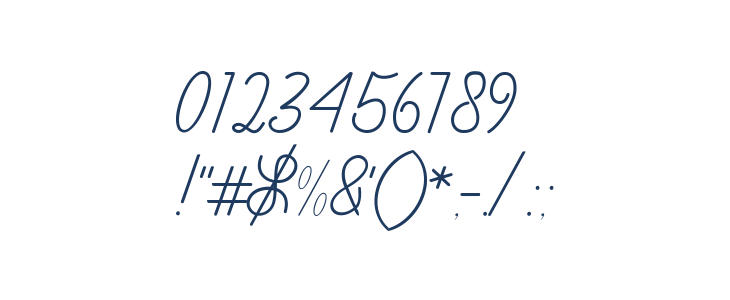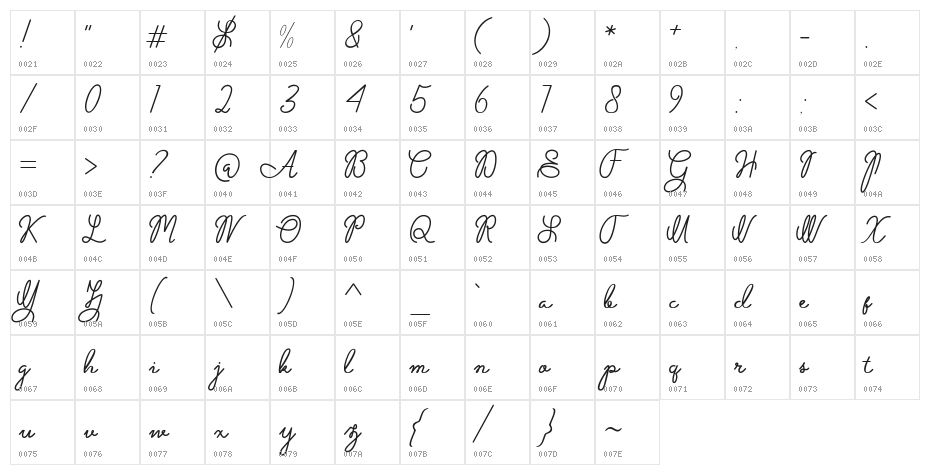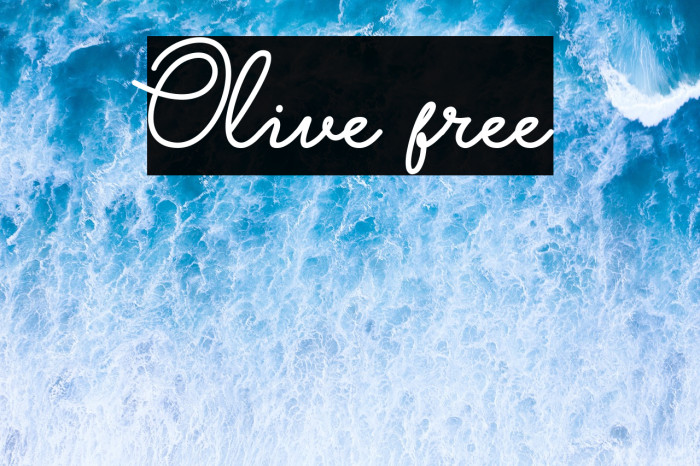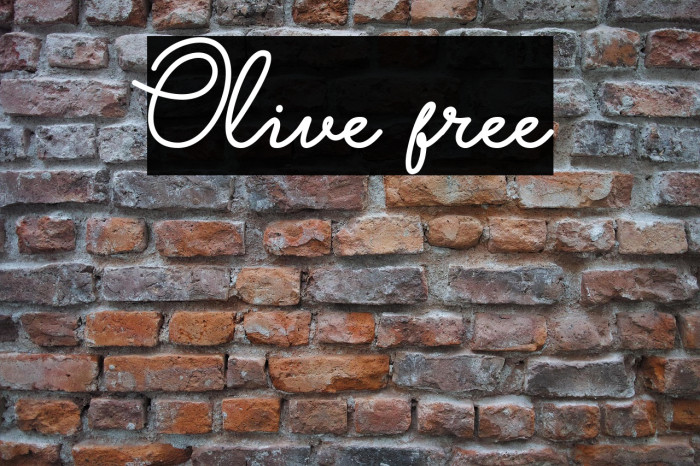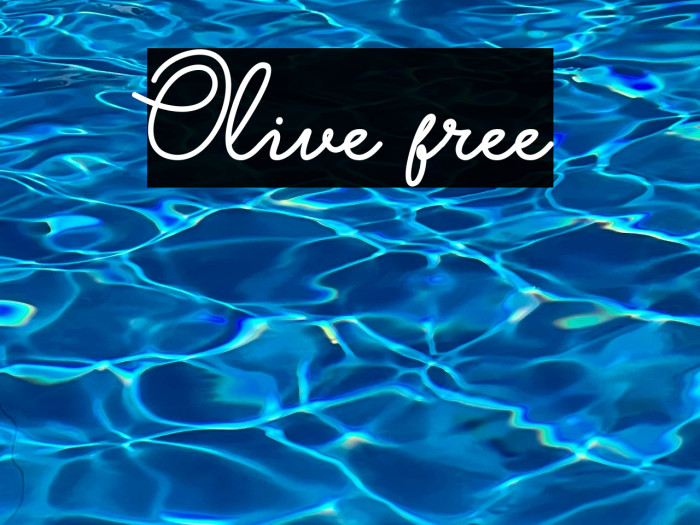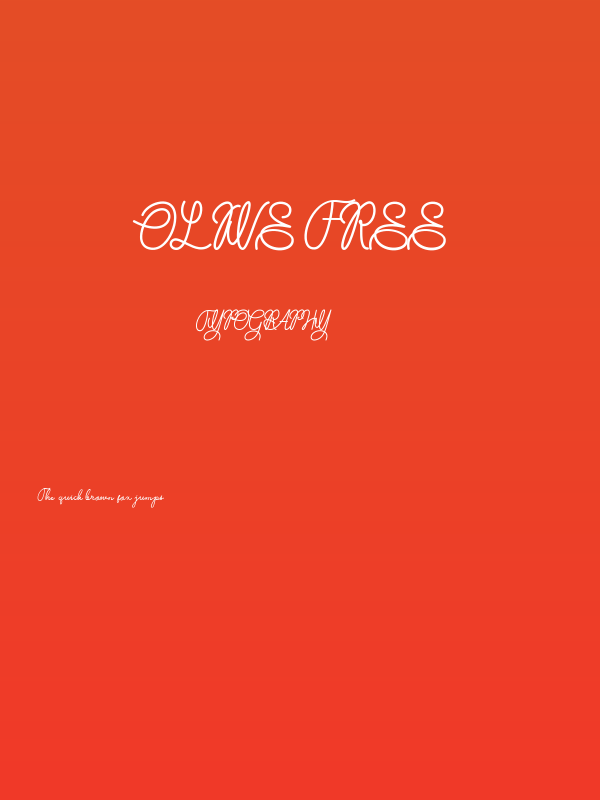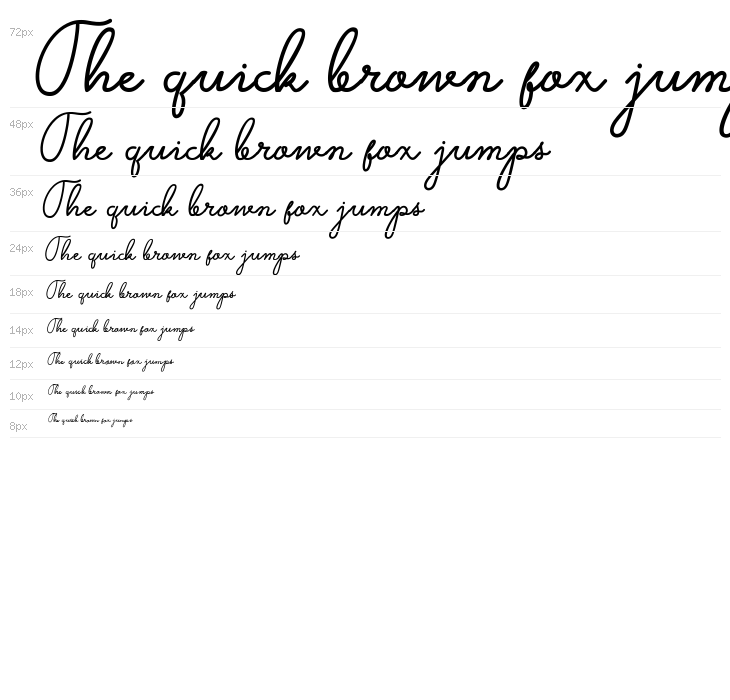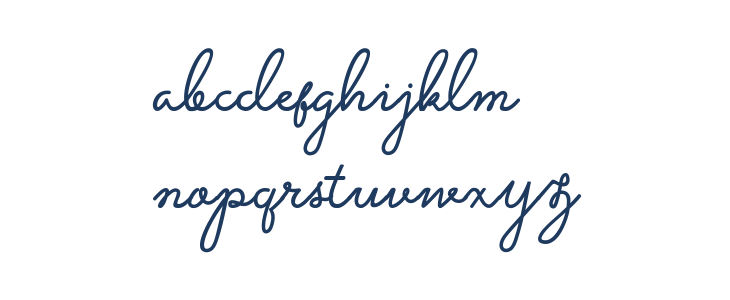
Olive free Font
Olive free Description
This font features an elegant, flowing script style that mimics natural handwriting. The letters are connected, creating a seamless and fluid appearance. The uppercase letters are ornate and slightly larger, while the lowercase letters maintain a consistent flow. The numerals and special characters are designed to match the cursive style, adding a cohesive look across all characters. The strokes are smooth and rounded, with a slight slant to the right, enhancing the handwritten feel. This font is ideal for projects that require a personal touch or a sophisticated, yet approachable aesthetic.
| Overall Style | Elegant, Handwritten |
| Proposed Projects | Ideal for wedding invitations, greeting cards, personal branding, and elegant logo designs. |